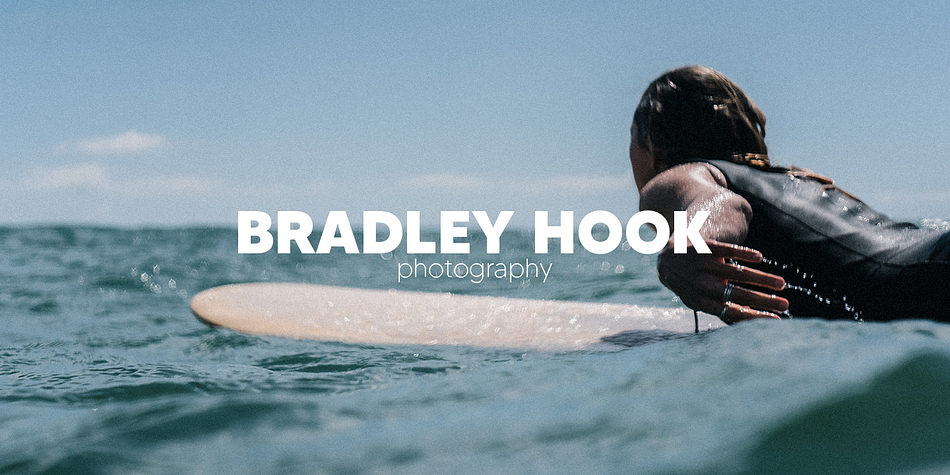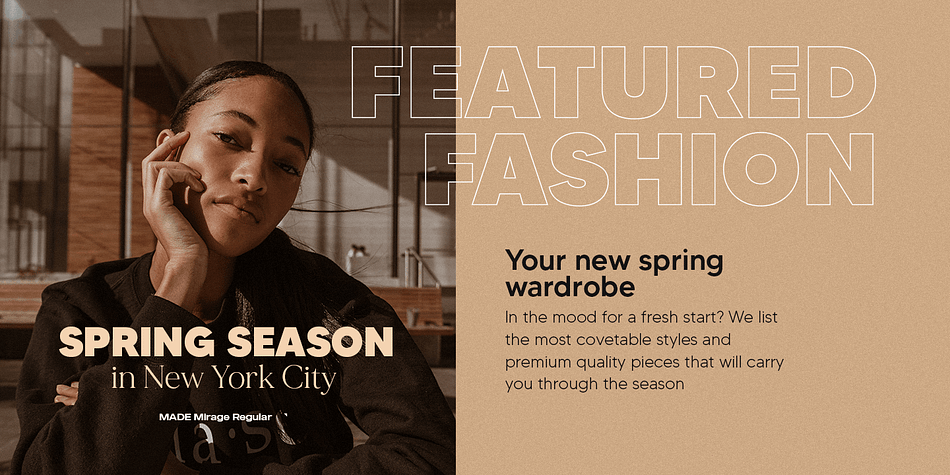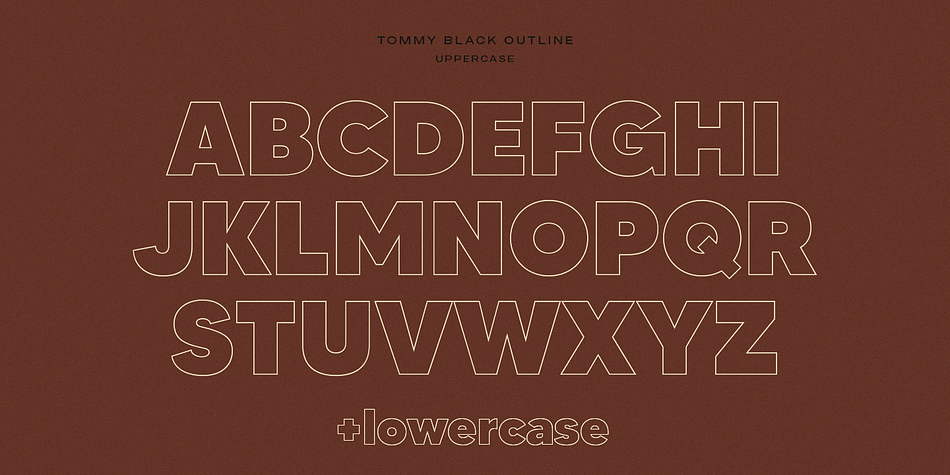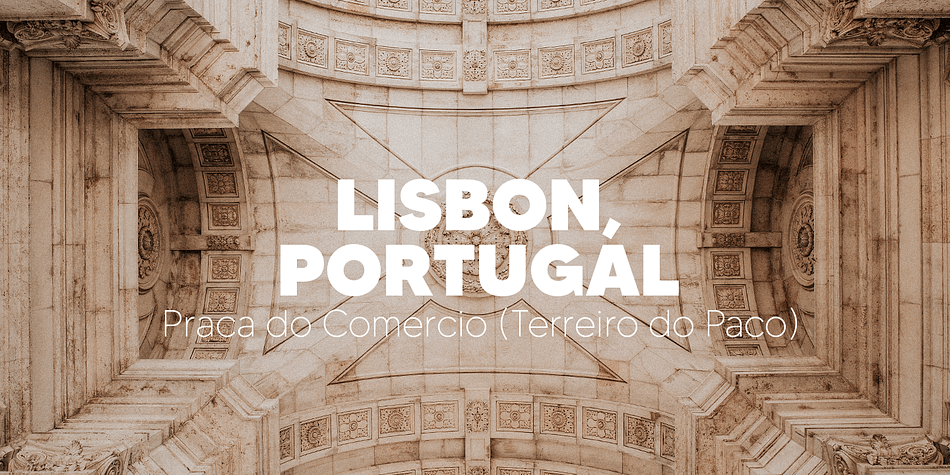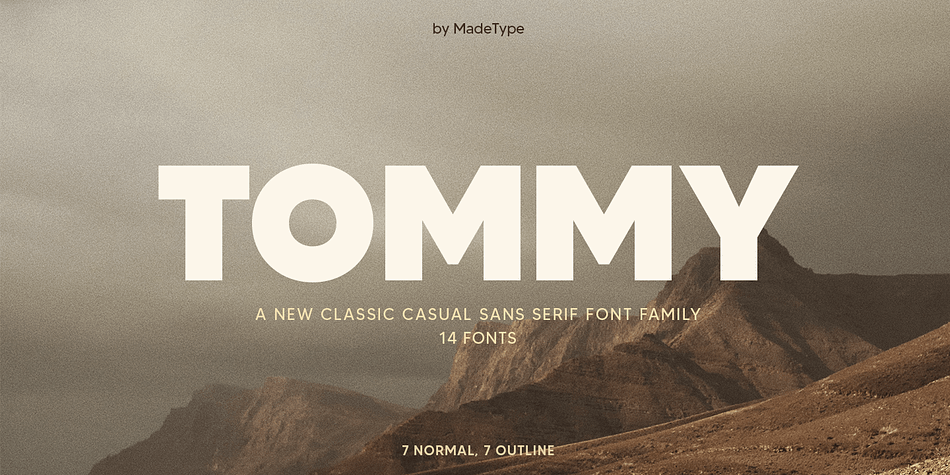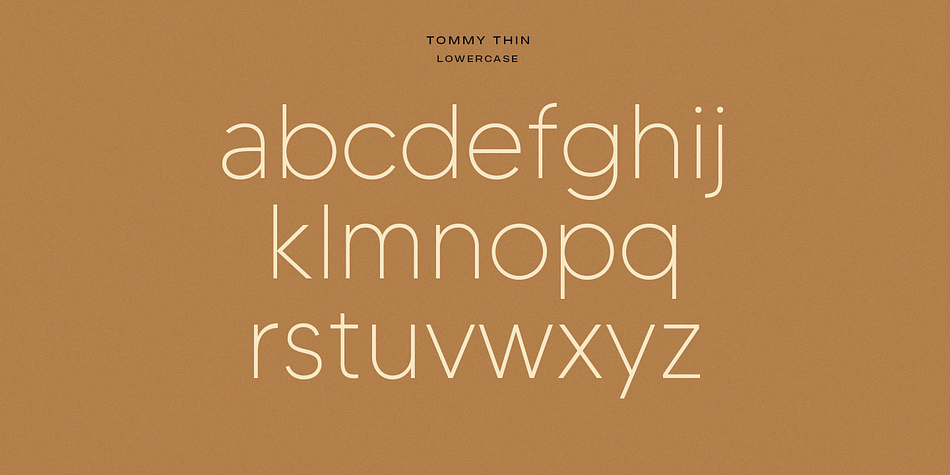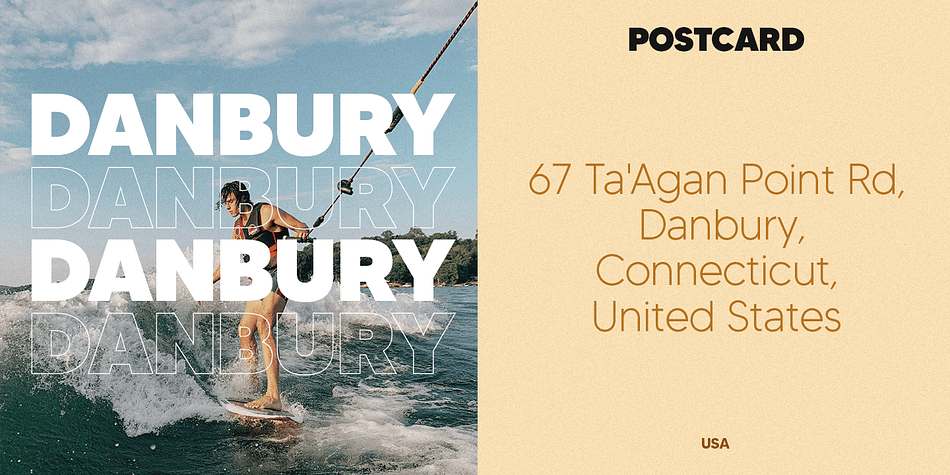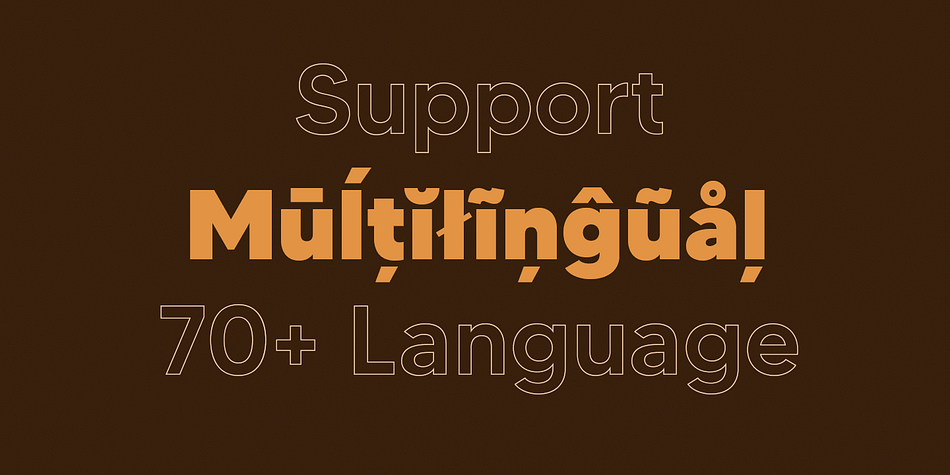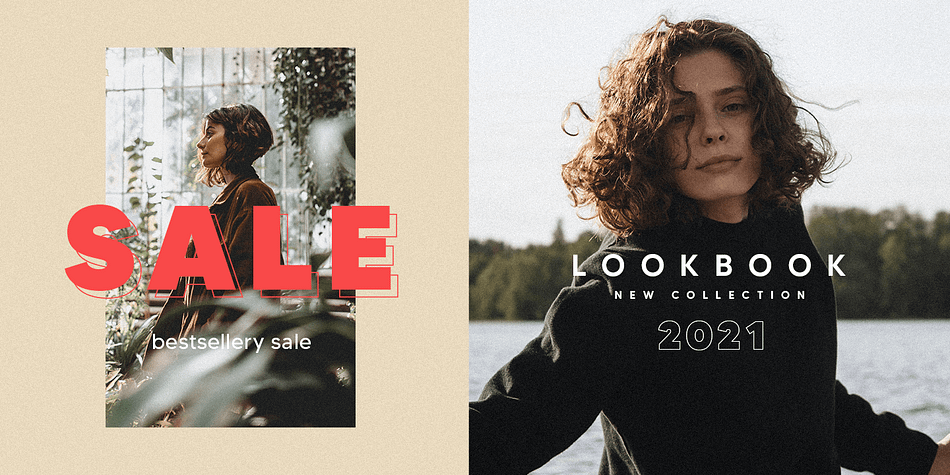
Designed by Maxim Schepin and Denis Schepin, MADE TOMMY is a sans serif font family. This typeface has fourteen styles and was published by MadeType.
MADE TOMMY is a new classic casual sans serif font family. The TOMMY font family includes: 7 normal and 7 outline style.
MADE TOMMY will perfect for many project: fashion, magazines, logo, branding, photography, invitations, wedding invitation, quotes, blog header, poster, advertisements, postcard, book, websites, etc.